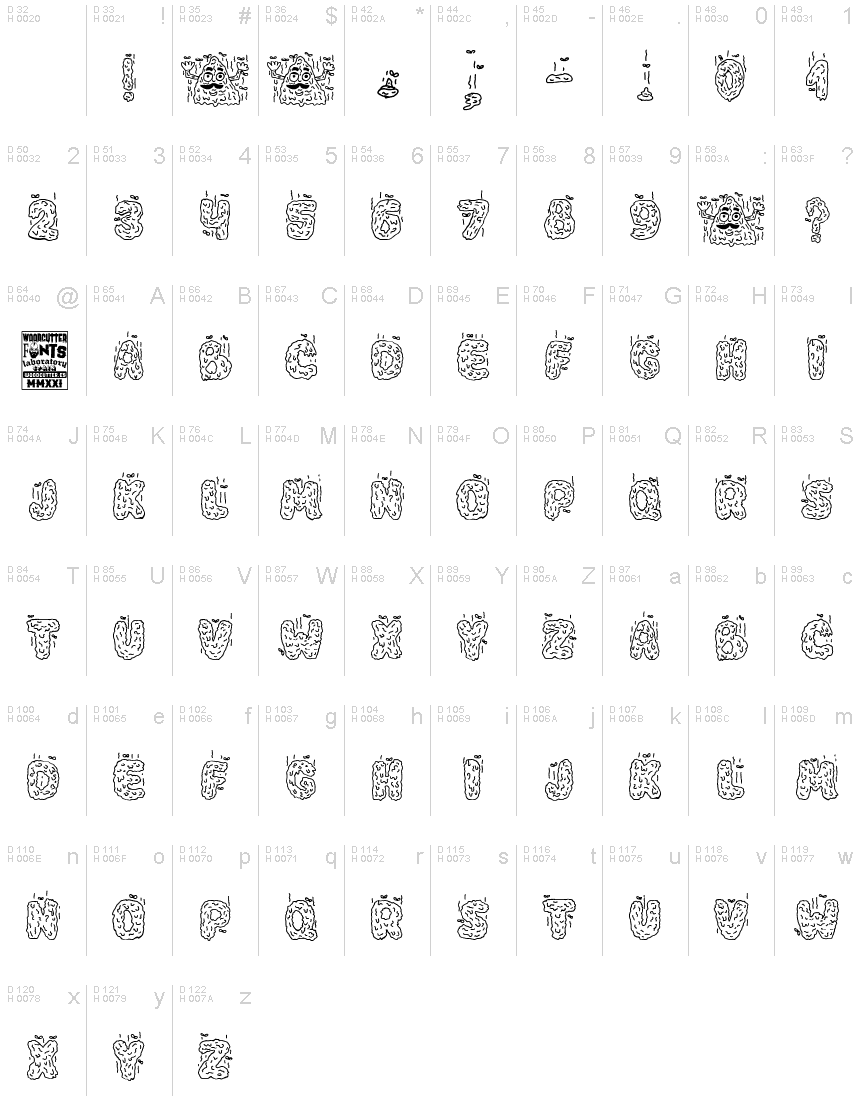
The Fabulous Mr. Poop
The Fabulous Mr. Poop is a playful and bold display font designed by Woodcutter. Its extra-bold weight and cartoon style make it perfect for projects that require a touch of whimsy, such as children's books, greeting cards, or even branding for quirky businesses. With its unique design and attention-grabbing aesthetic, The Fabulous Mr. Poop is sure to add some fun and flair to any project it's used in. So why settle for a boring old font when you can have The Fabulous Mr. Poop? Let this eccentric typeface bring your designs to life!